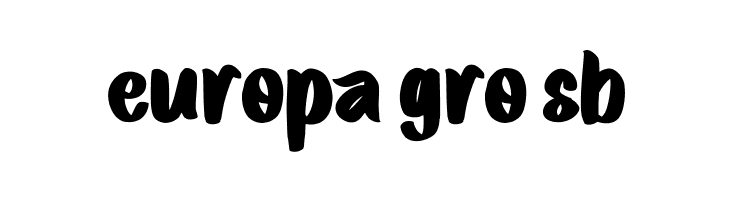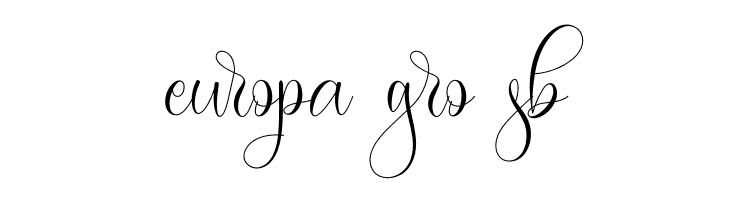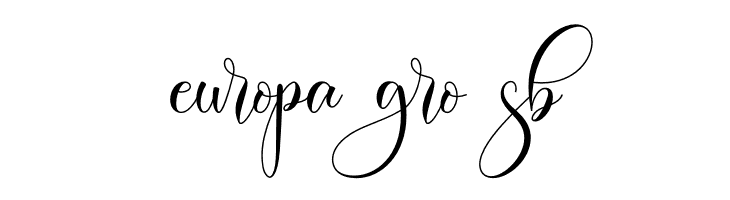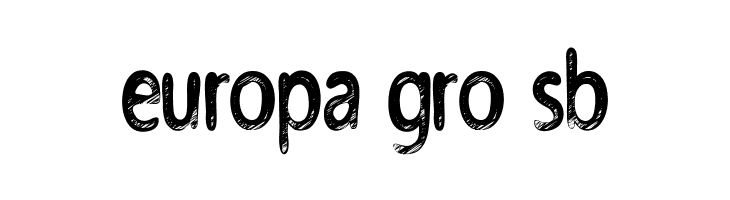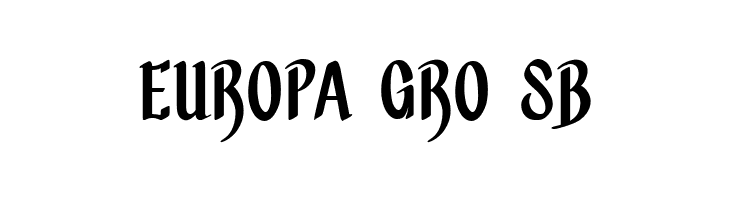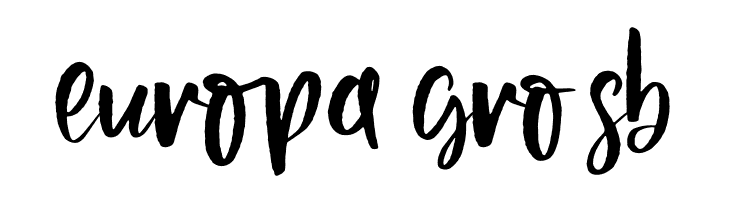
A bold, handwritten-style font with a playful and expressive character.
A dynamic and expressive handwritten font with fluid, flowing letterforms.
A playful handwritten font with smooth, flowing curves and a casual style.
A sophisticated script font with elegant loops and swashes.
An elegant script font with flowing, cursive style and decorative flourishes.
A playful, hand-drawn font with a sketch-like texture and bold, rounded letters.
A bold, artistic font with elegant curves and sharp angles.
A bold, energetic handwritten font with dynamic and fluid strokes.
A modern, italicized font with smooth curves and consistent stroke width.